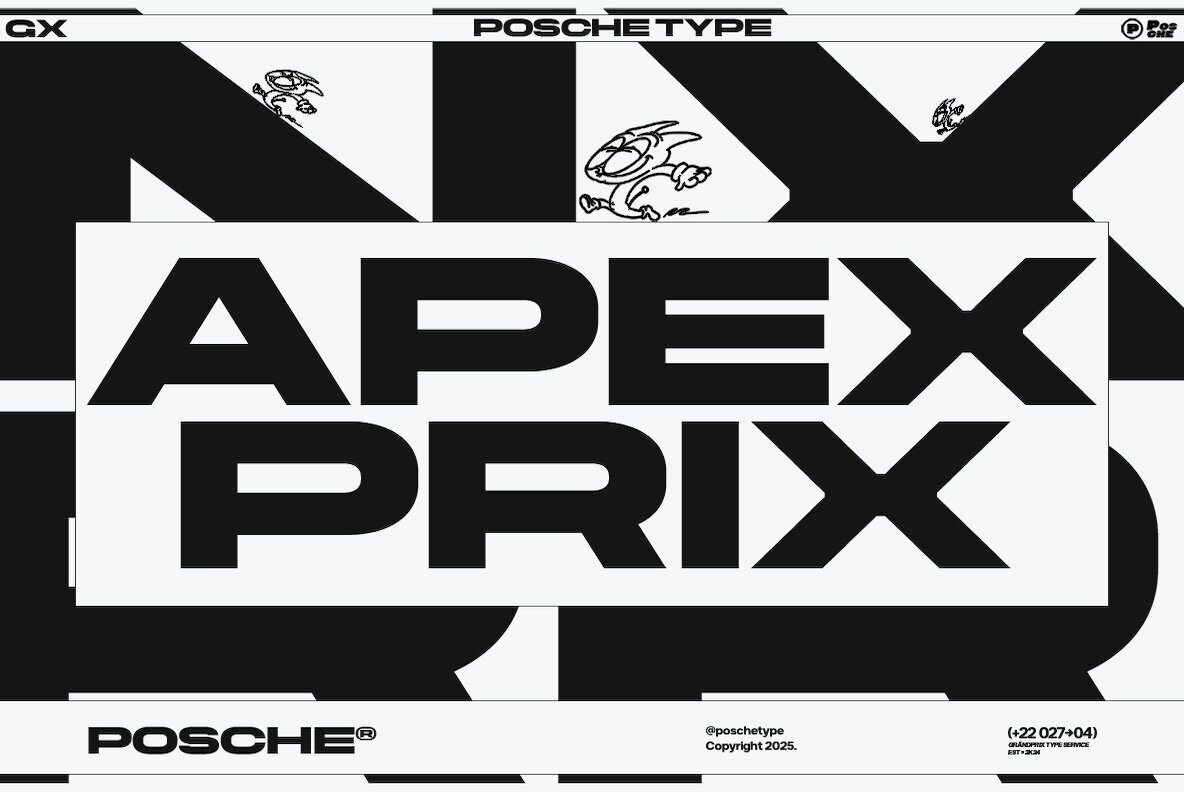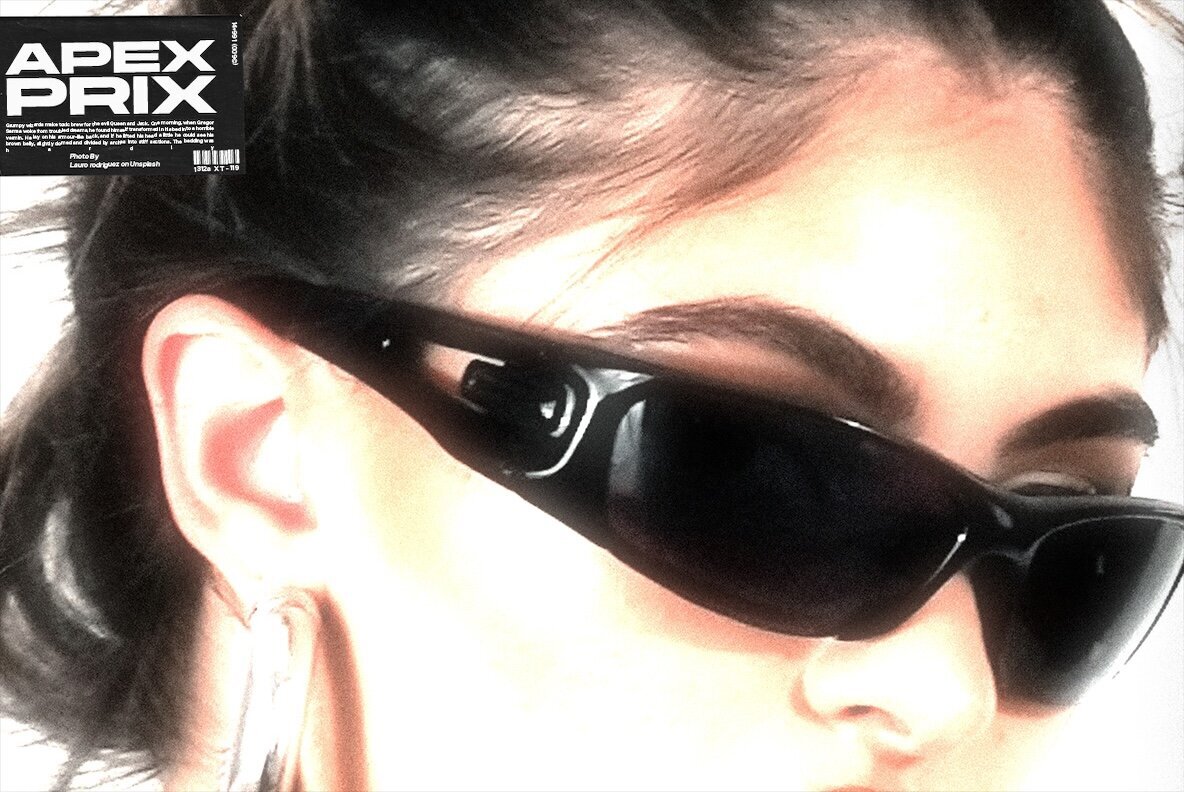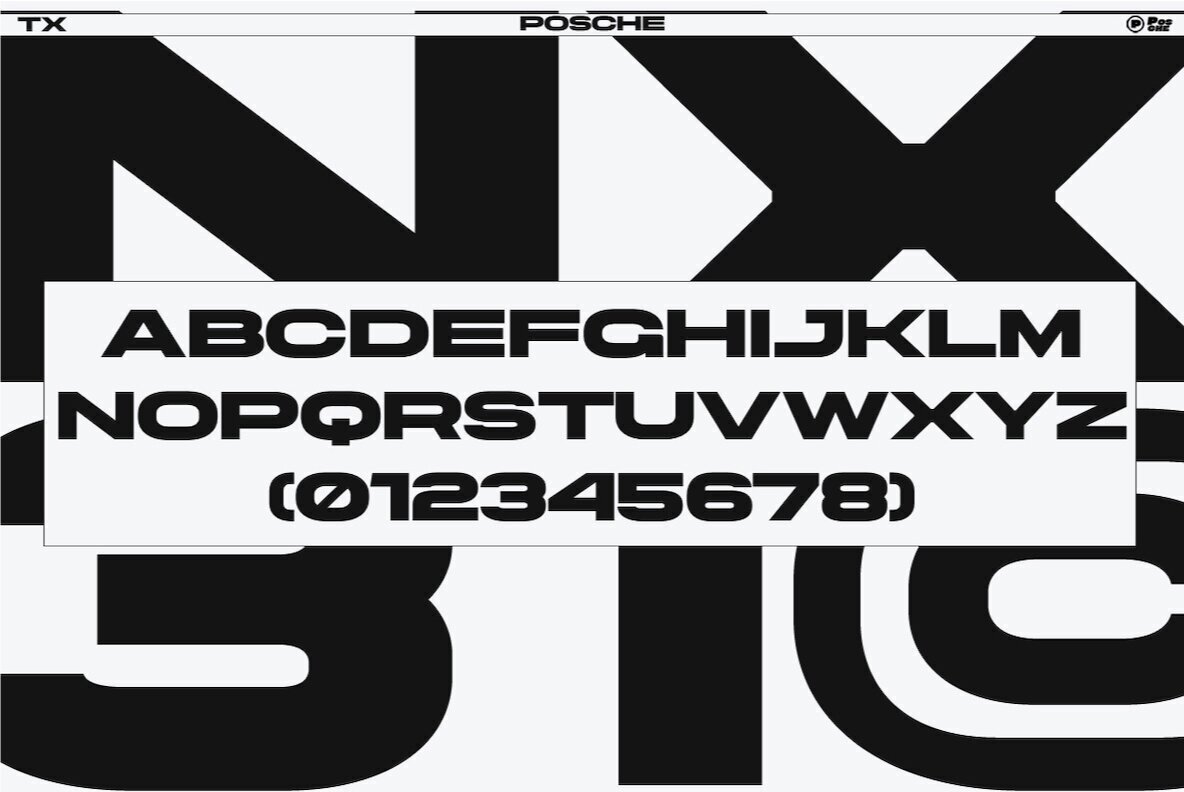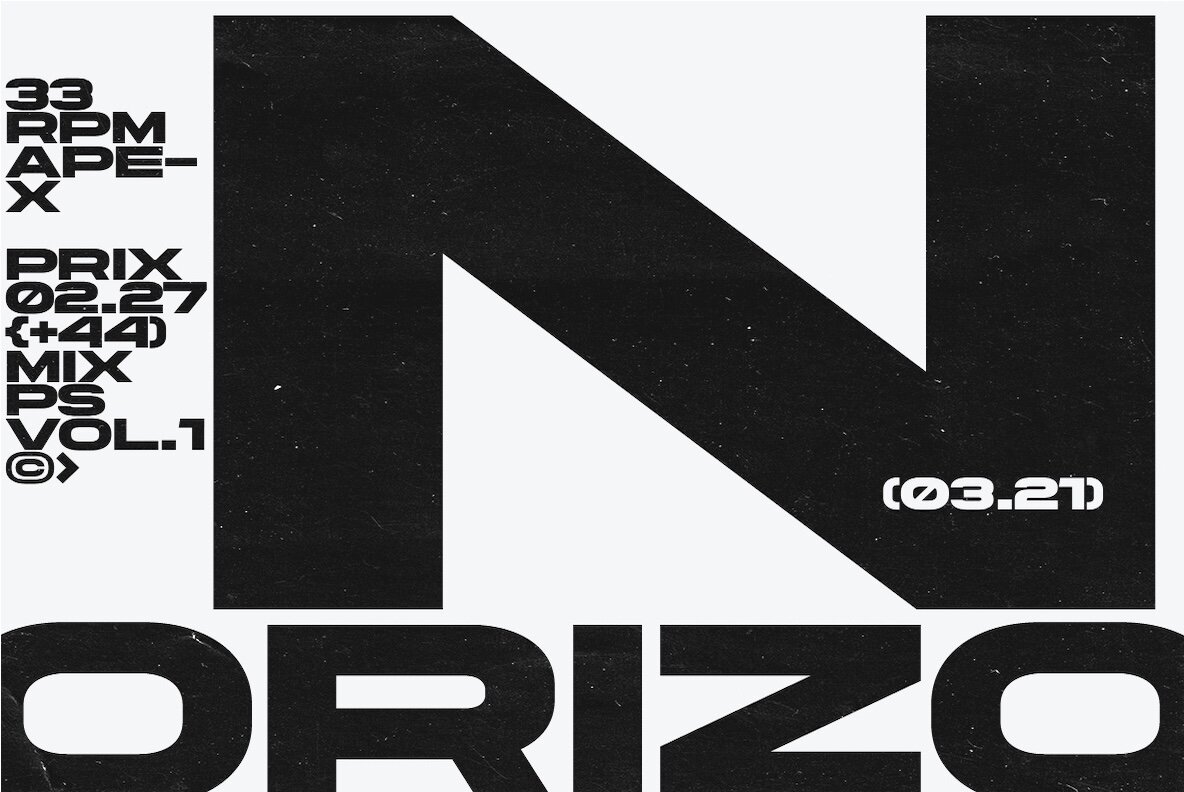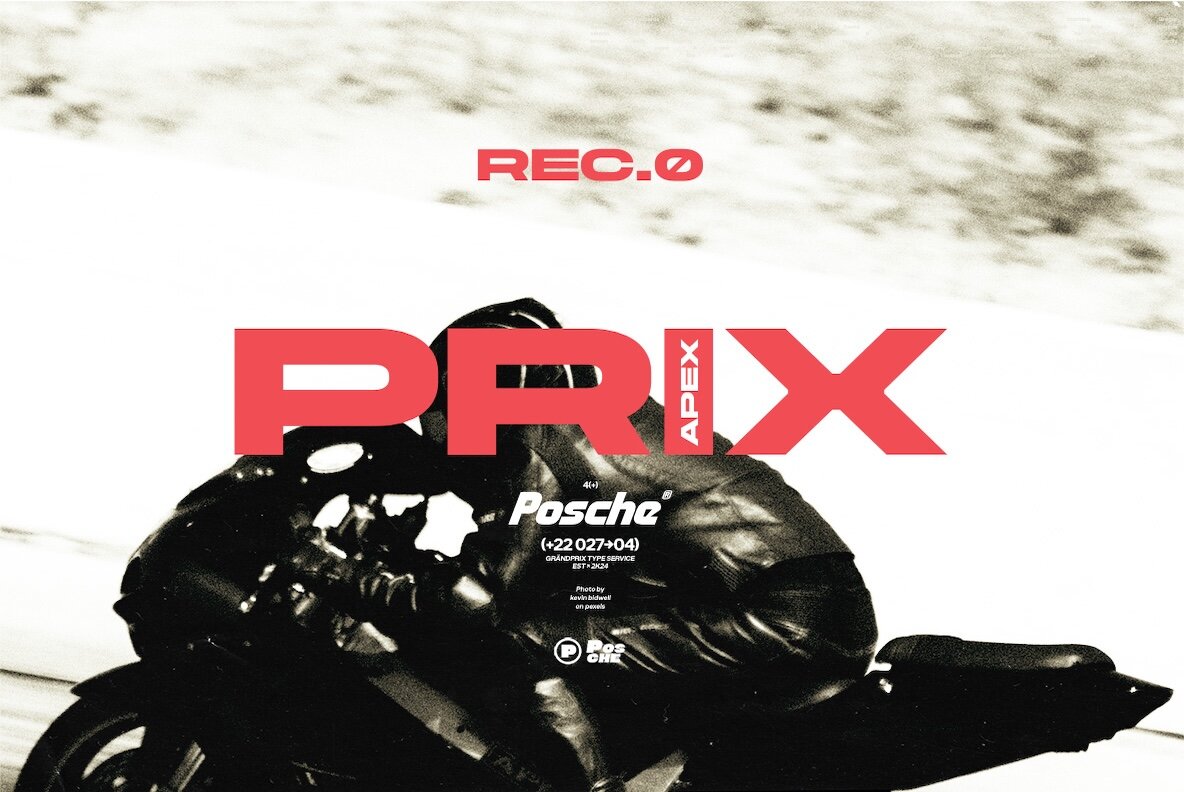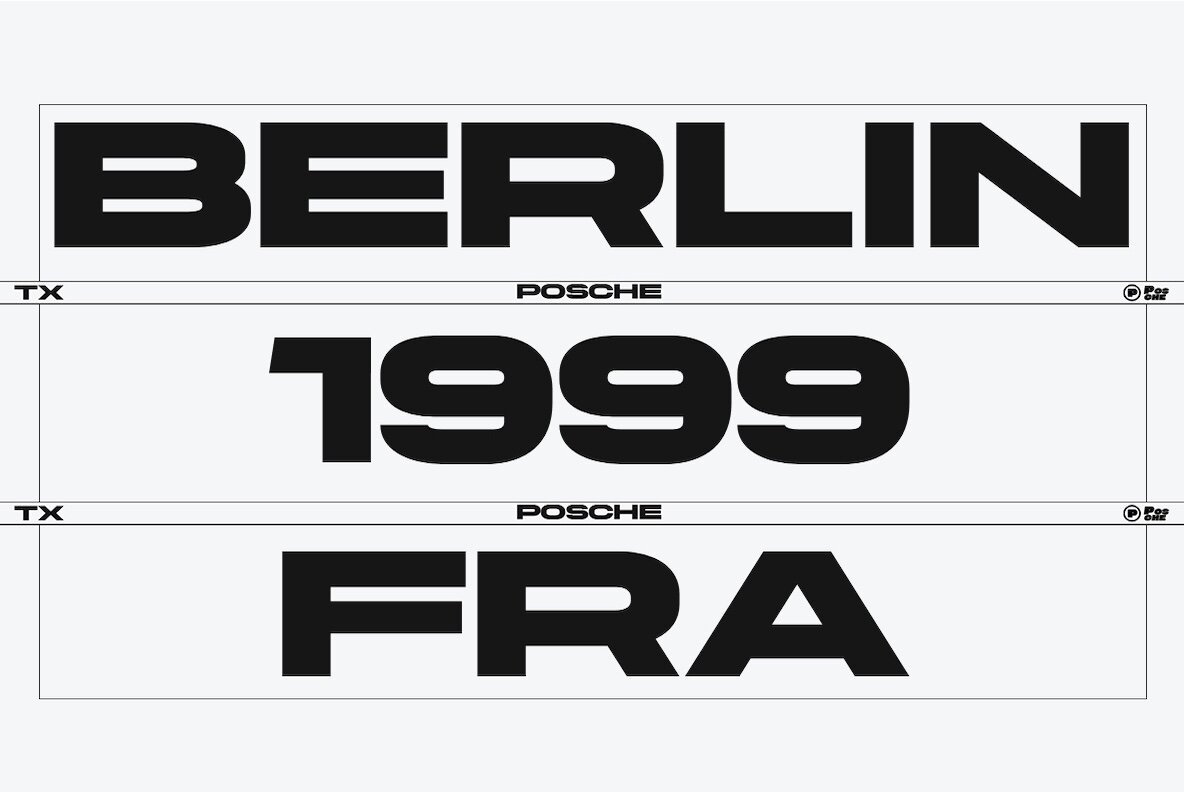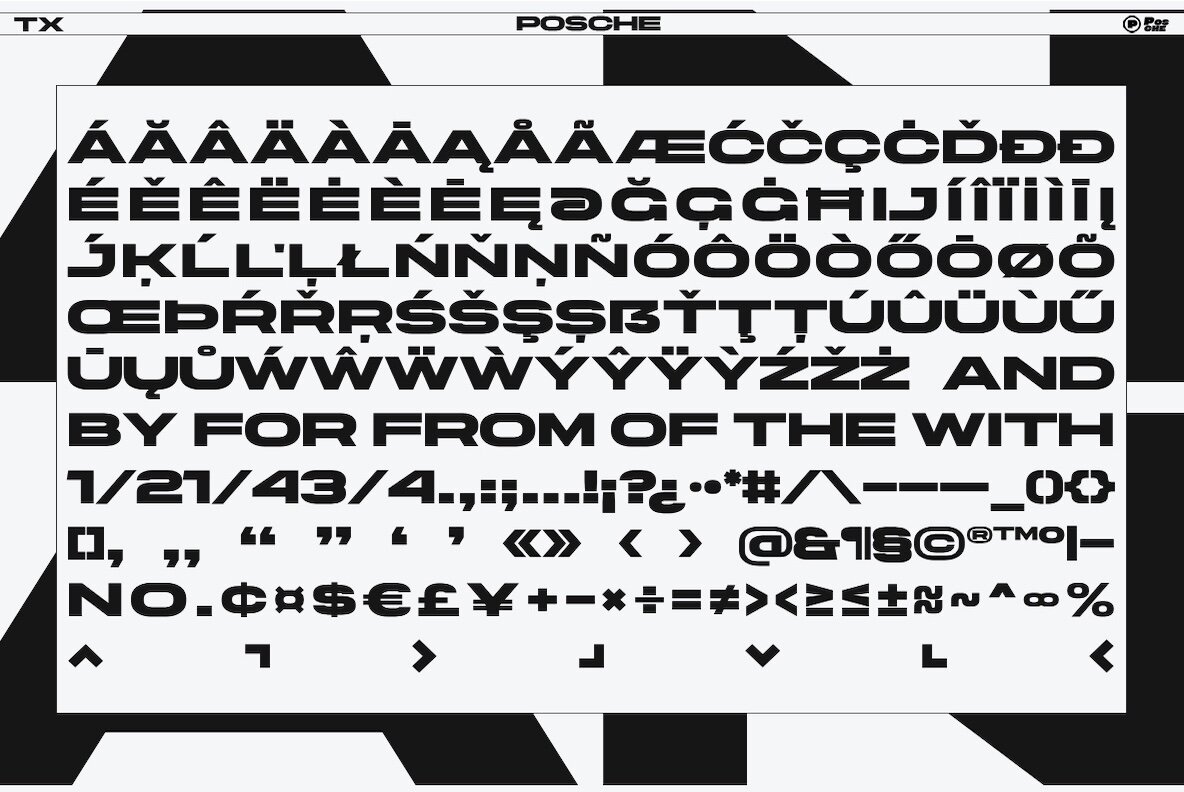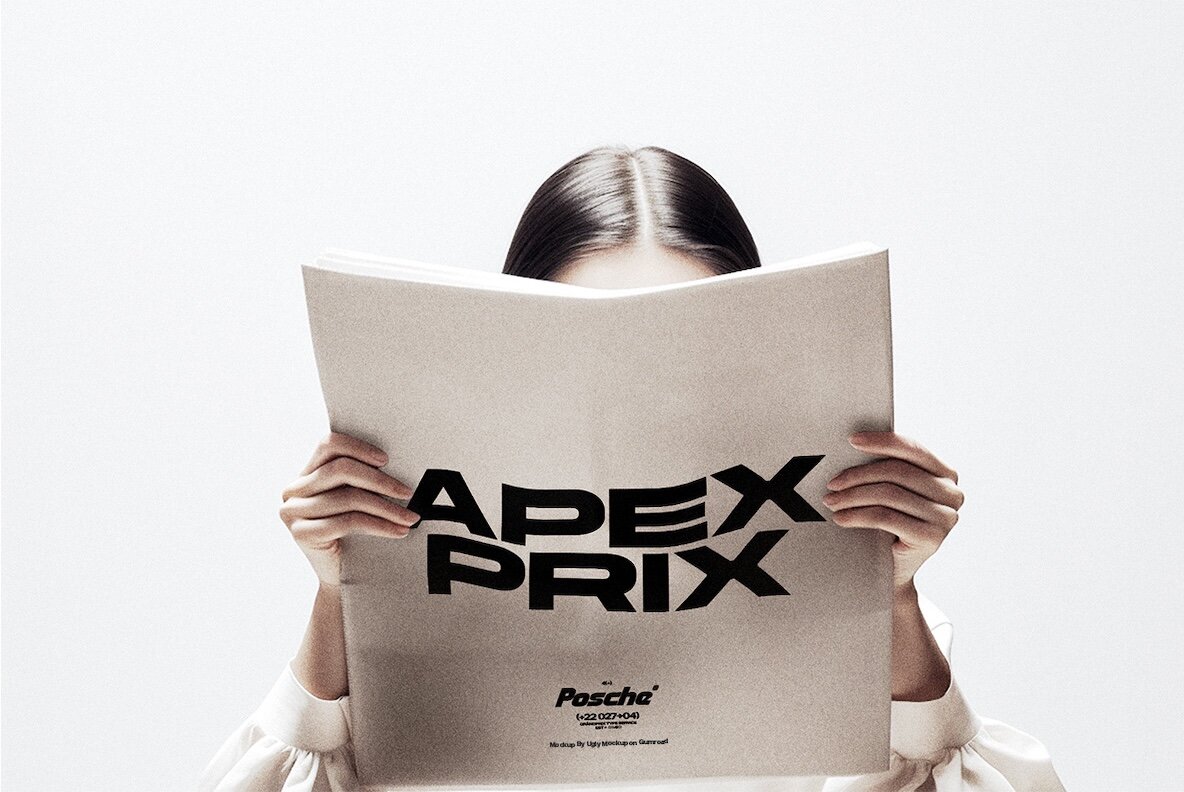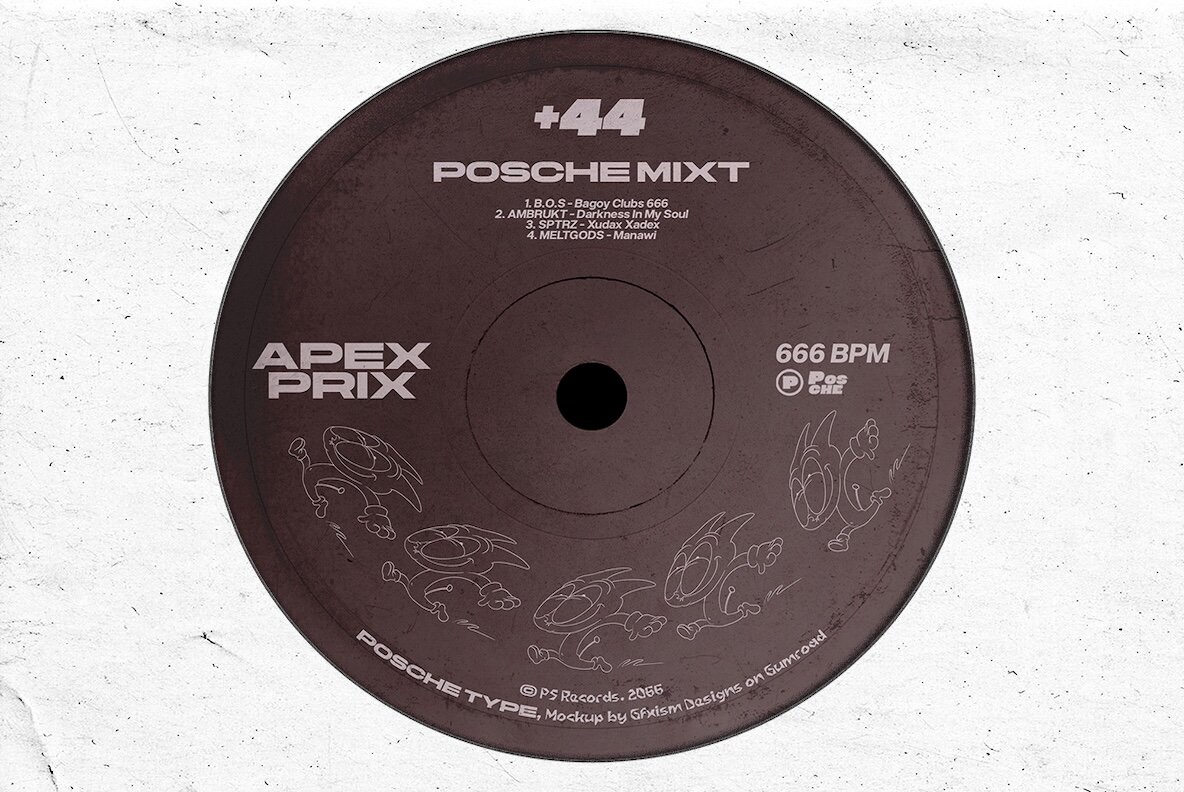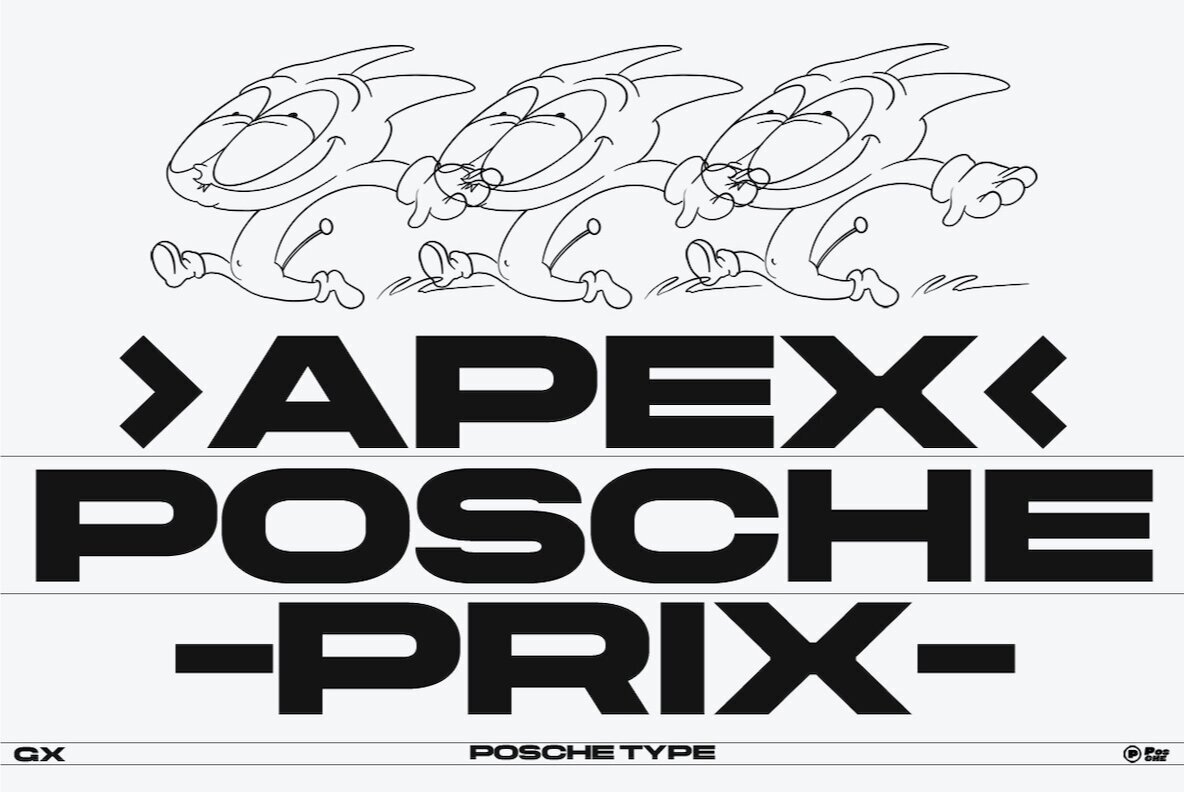
PS Apex Prix Font
PS APEX PRIX
PS Apex Prix challenges the norms of sans-serif typography with its over-width style. This font is both straightforward and visually striking, offering a dynamic presence in any design element. Complementary fonts, such as PS Clubs, PS Rismo, and PS Chonk from Posche, provide nuanced support in varied design contexts.PS Apex Prix: A Bold, Over-Width Sans Serif